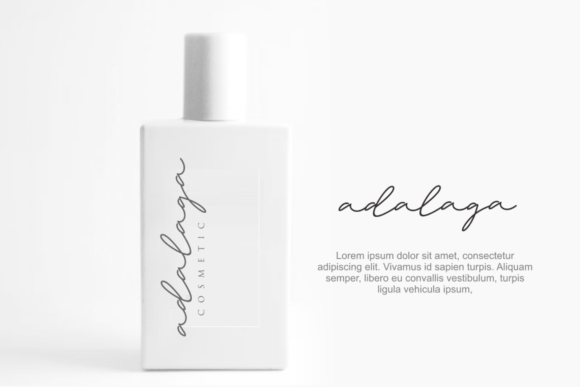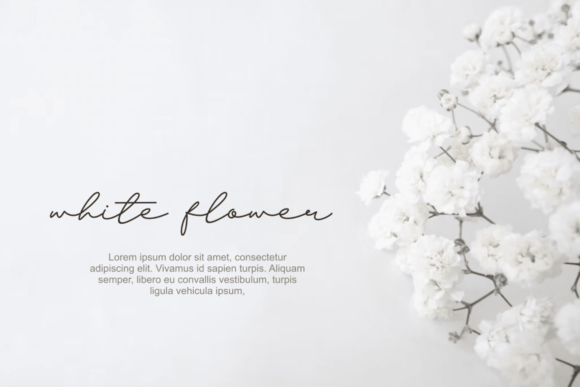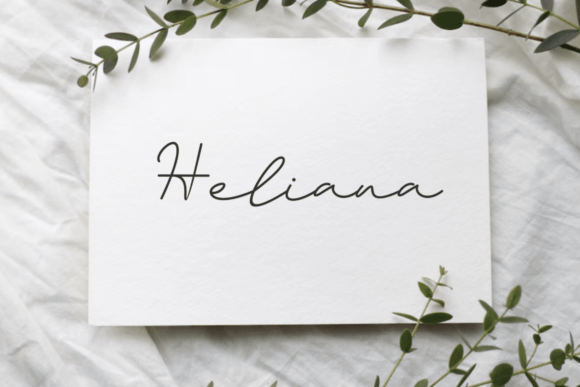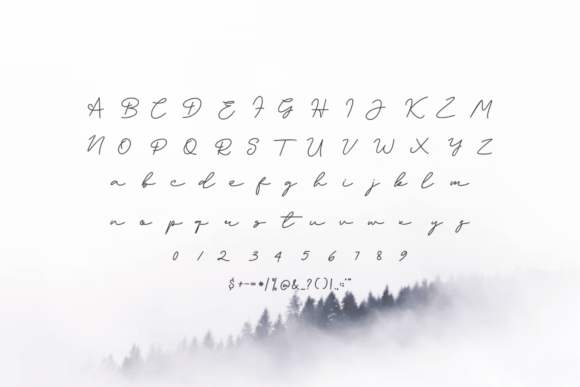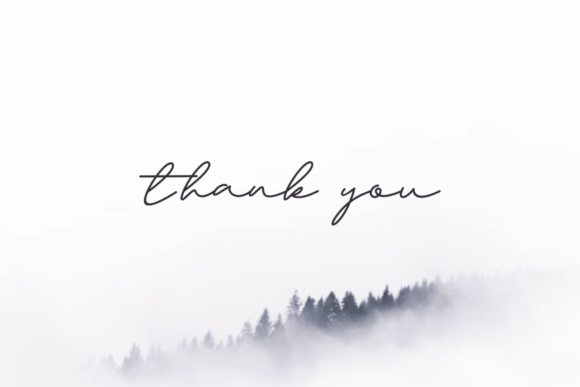
Hadingan Font: The Ultimate Choice for Designers and Crafters
In the world of typography, fonts play a crucial role in conveying the tone and personality of a brand. With thousands of fonts available, finding the perfect one for your project can be overwhelming. However, if you’re looking for a thin and authentic script font that can elevate your branding project, look no further than Hadingan Font. In this article, we’ll explore the features, benefits, and uses of Hadingan Font, and why it’s becoming a favorite among designers and crafters.
What is Hadingan Font?
Hadingan Font is a beautifully crafted script font that boasts a thin and authentic design. Its elegant strokes and refined lines make it perfect for a wide range of applications, from logos and t-shirt printing to esports and more. The font’s unique charm lies in its ability to add a touch of sophistication and style to any project.
Key Features of Hadingan Font
- Thin and Authentic Design: Hadingan Font features a thin and authentic script design that sets it apart from other fonts.
- Highly Versatile: The font is suitable for various branding projects, including logos, t-shirt printing, esports, and more.
- Elegant Strokes: Hadingan Font’s elegant strokes and refined lines make it perfect for adding a touch of sophistication to any project.
- Easy to Read: Despite its thin design, Hadingan Font is highly legible, making it perfect for use in a wide range of contexts.
Benefits of Using Hadingan Font
So, why should you choose Hadingan Font for your next project? Here are just a few benefits of using this amazing font:
- Unique Identity: Hadingan Font can help you create a unique identity for your brand, setting you apart from competitors.
- Professional Look: The font’s elegant design gives your project a professional look that’s sure to impress.
- Flexibility: Hadingan Font is highly versatile, making it perfect for use in a wide range of applications.
Use Cases for Hadingan Font
Hadingan Font is an incredibly versatile font that can be used in a wide range of applications. Here are just a few examples:
- Logo Design: Create a stunning logo for your brand using Hadingan Font.
- T-Shirt Printing: Add a touch of style to your t-shirt designs with Hadingan Font.
- Esports: Use Hadingan Font to create professional-looking esports branding, including team logos and jerseys.
- Stationery: Add a touch of elegance to your stationery, including business cards, letterheads, and more.
Tips for Using Hadingan Font
To get the most out of Hadingan Font, here are a few tips to keep in mind:
- Use it Sparingly: While Hadingan Font is beautiful, it’s best used sparingly to avoid overwhelming the reader.
- Pair it with Other Fonts: Experiment with pairing Hadingan Font with other fonts to create a unique look.
- Adjust the Size: Adjust the size of Hadingan Font to create visual interest and hierarchy.
In conclusion, Hadingan Font is a thin and authentic script font that’s perfect for designers and crafters looking to add a touch of elegance to their projects. With its highly versatile design, elegant strokes, and ease of use, Hadingan Font is sure to become a favorite among creative professionals. Whether you’re working on a logo, t-shirt design, or esports branding, Hadingan Font is the perfect choice.